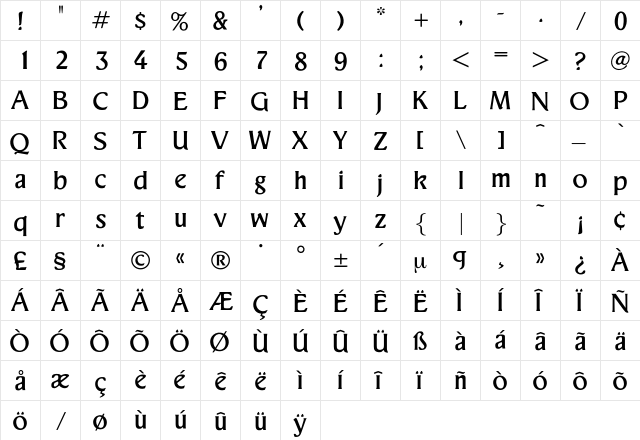
Gotthard Regular
Design Context for Gotthard Typeface
Gotthard takes a measured approach to typography — its balanced proportions and neutral character make it a reliable workhorse for both digital and print work.